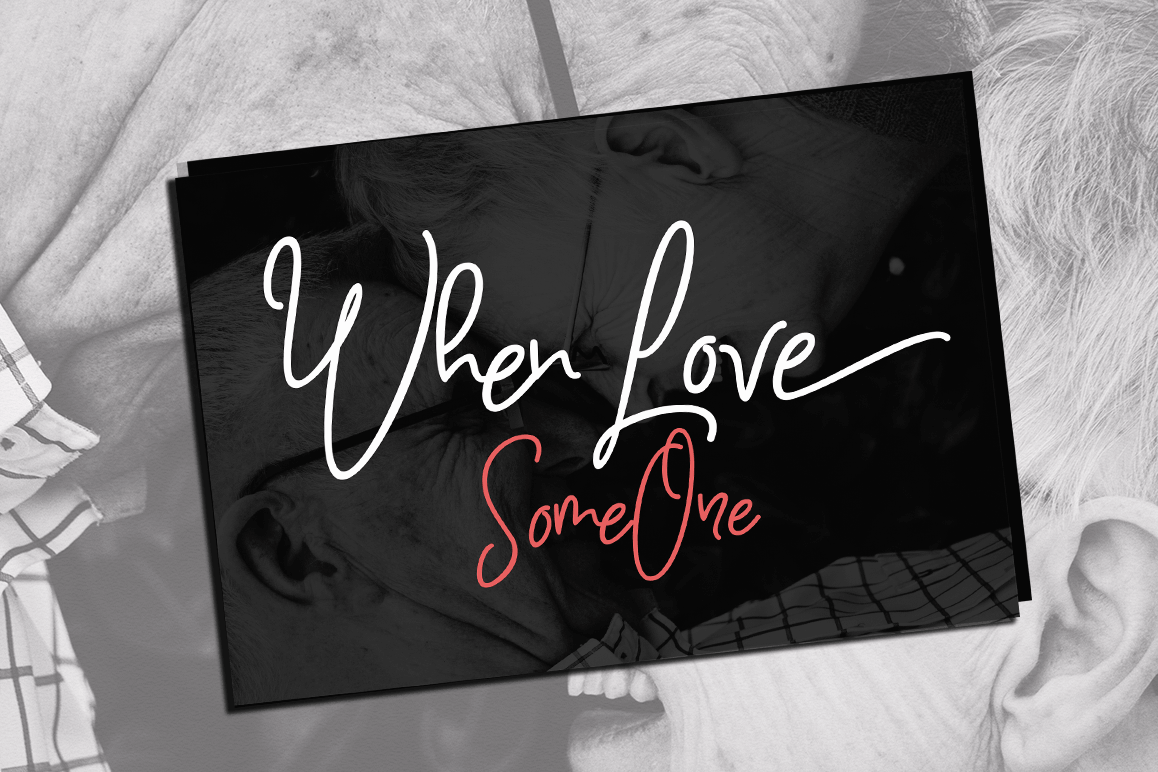
When Love
When Love is another lovely modern calligraphy typefaces, which is combining the style of classic calligraphy with an modern style. combines from copperplate to contemporary typeface with a dancing baseline, modern and elegant touch. including initial and terminal letters, alternates, ligatures and multiple language support.